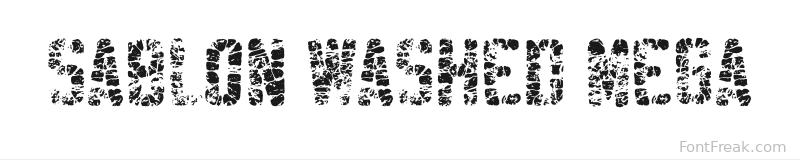
Sablon Washed Mega
About Sablon Washed Mega
Sablon Washed Mega is a striking display font designed by Youssef Habchi, classified as a decorative typeface. Its unique visual characteristics, including a distressed texture and uneven stroke weights, give it an organic, weathered appearance that resonates with a handmade aesthetic. The contrast between thick and thin elements creates a dynamic flow, while the irregular spacing adds to its charm, making it perfect for capturing attention in a variety of design settings.
This versatile font excels in specific applications such as wedding invitations, where its whimsical flair can convey romance and warmth. It’s also well-suited for movie posters, lending a gritty, vintage vibe that can enhance the theme of thrillers or indie films. For restaurant menus, Sablon Washed Mega can add an element of rustic charm, inviting diners to experience a cozy, welcoming atmosphere. Additionally, it works wonderfully for branding small businesses, helping them create a distinct identity that stands out in a crowded market.
What makes Sablon Washed Mega truly standout is its ability to blend a contemporary aesthetic with a nostalgic feel. This font captures the essence of handmade craftsmanship while remaining accessible and versatile, appealing to those looking to infuse their projects with character. For anyone seeking to enhance their design collection, the Sablon Washed Mega font free download provides a unique opportunity to elevate various projects with its distinctive style.